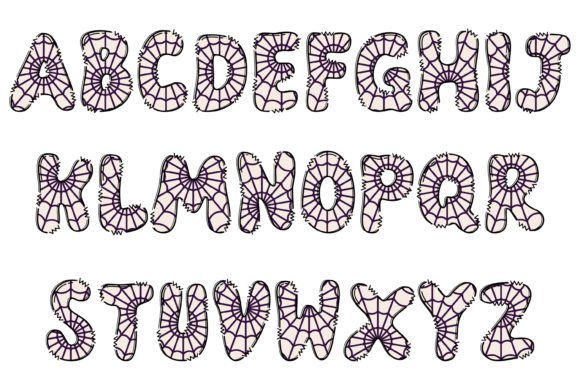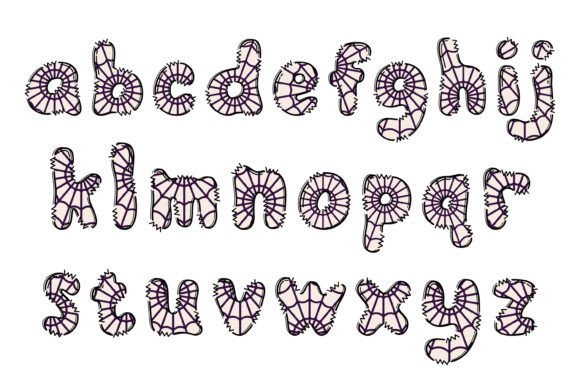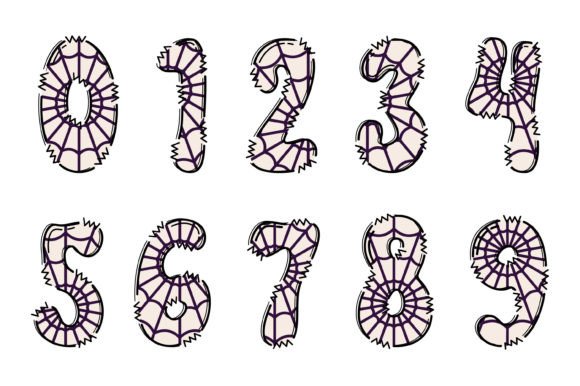
Introduction to Scary Web Font
Do you remember the moment when you stumbled upon the perfect font for your creative project? The one that made everything fall into place and your design shine? For many designers, that moment is like a breath of fresh air, and it’s exactly what we’re about to share with you. Say hello to the Scary Web Font, a high-quality, free download that’s perfect for designers who want to add a playful touch to their work.
Whether you’re working on a children’s book, a poster, or an invitation, the Scary Web Font is a valuable resource that can elevate your design and make it stand out. Its transparent background and colorful design make it a great choice for creative projects that require a bit of whimsy and fun. With its compatibility with popular design programs like PhotoShop and Illustrator, you can rest assured that your design will look its best.
Key Features of Scary Web Font
- High-quality, free download font for creative projects, ideal for designers seeking a design resource.
- Scary Web Font features a transparent background, allowing for seamless integration with any design.
- Unique, spooky design makes it perfect for Halloween-themed projects or any creative project that requires a dark and eerie atmosphere.
- High-resolution font, suitable for both web and print design, ensuring crisp and clear text display at any size.
Honest Review: Scary Web Font
I recently stumbled upon the Scary Web Font and was excited to give it a try in my current design project. As a designer, I’m always on the lookout for high-quality resources that can elevate my creative work.
- High-quality design: The font is well-designed and looks great on both desktop and mobile devices.
- Transparent background: The font has a transparent background, making it easy to use on any background image or color.
However, there are a few limitations to the Scary Web Font that I’d like to mention: ⚠️
- Limited character set: The font only includes a limited character set, which may not be suitable for longer pieces of text.
- No bold or italic options: Unfortunately, the font does not include bold or italic options, which can make it difficult to add emphasis to certain words or phrases.
Overall, I’m impressed with the Scary Web Font and would definitely consider using it in future design projects. With a little creativity and some workarounds for its limitations, it’s a great addition to any designer’s toolkit. ✨
For the most out of the Scary Web Font, experiment with different font sizes, colors, and combinations to create a unique and eerie atmosphere. Use it to create invitations, posters, or even social media graphics that will leave a lasting impression.
The Scary Web Font is perfect for Halloween-themed designs, horror movie posters, and spooky event invitations. Its high-quality design makes it an ideal choice for any creative project that requires a touch of eeriness and sophistication.